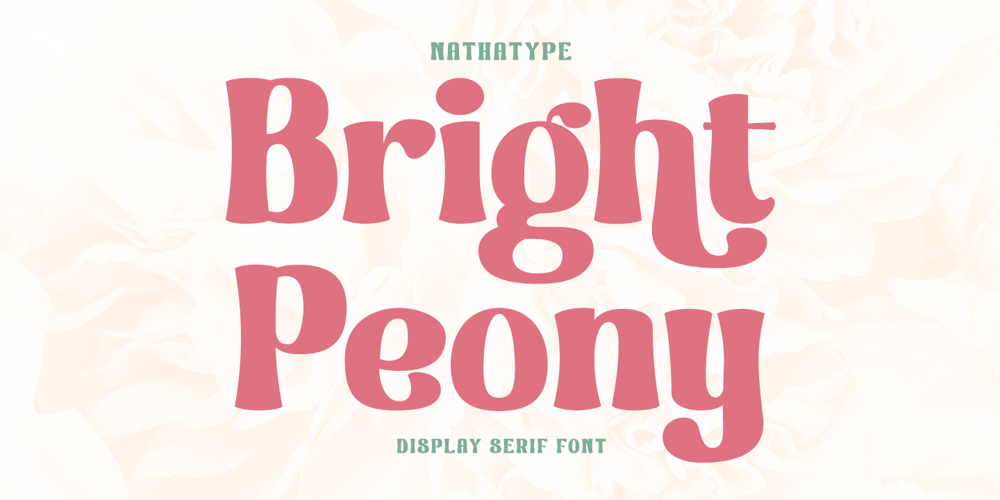
Bright Peony Font Family was designed by Donis Miftahudin and published by Nathatype. Bright Peony contains 1 styles and family package options. Bright Peony is a lovely display serif font to show friendly, feminim, modern nuances. It is truly legible due to its high contrast and simply noticeable forms. Therefore, you can apply this font for any text sizes and lengths. You may also enjoy various features available in this font.Features: Stylistic Alternates Ligatures Multilingual Supports PUA Encoded Numerals and Punctuations Bright Peony fits best for various design projects, such as posters, banners, logos, magazine covers, quotes, headings, printed products, invitations, name cards, merchandise, social media, etc. Find out more ways to use this font by taking a look at the font preview.Thanks for purchasing our fonts. Hopefully, you have a great time using our font. Feel free to contact us anytime for further information or when you have trouble with the font. Thanks a lot and happy designing.